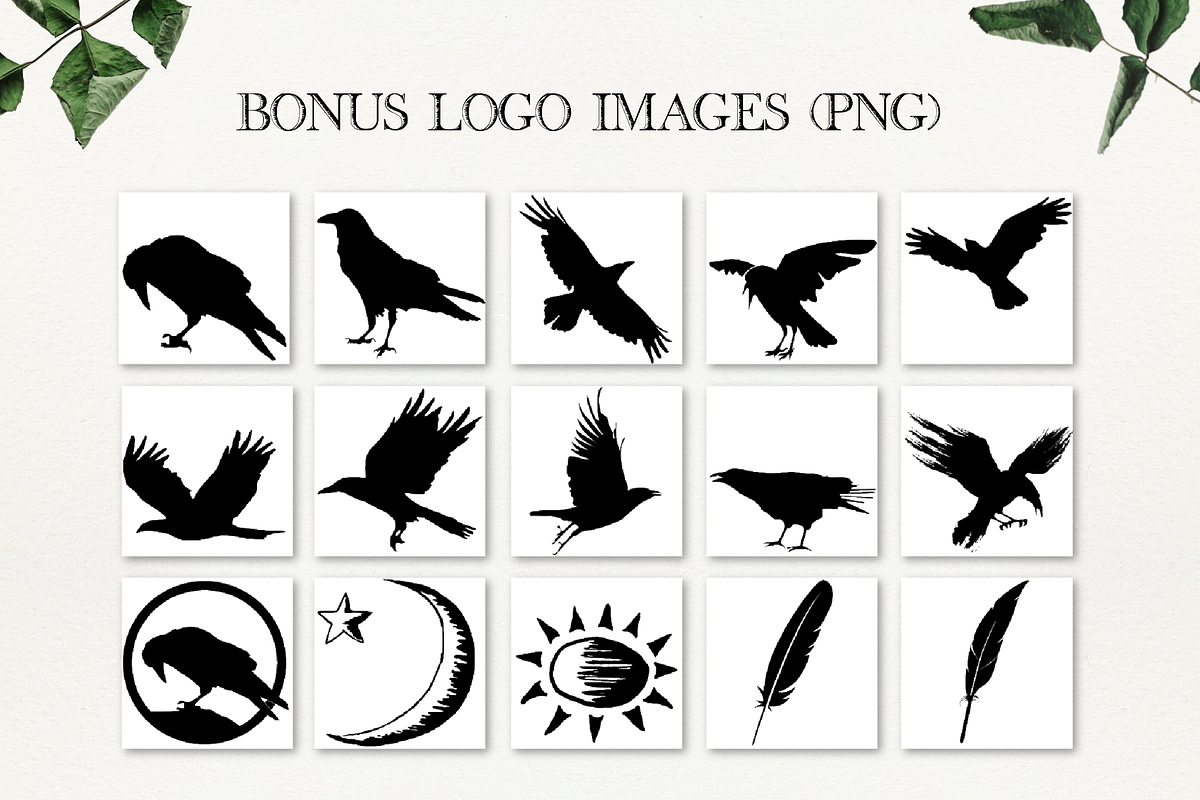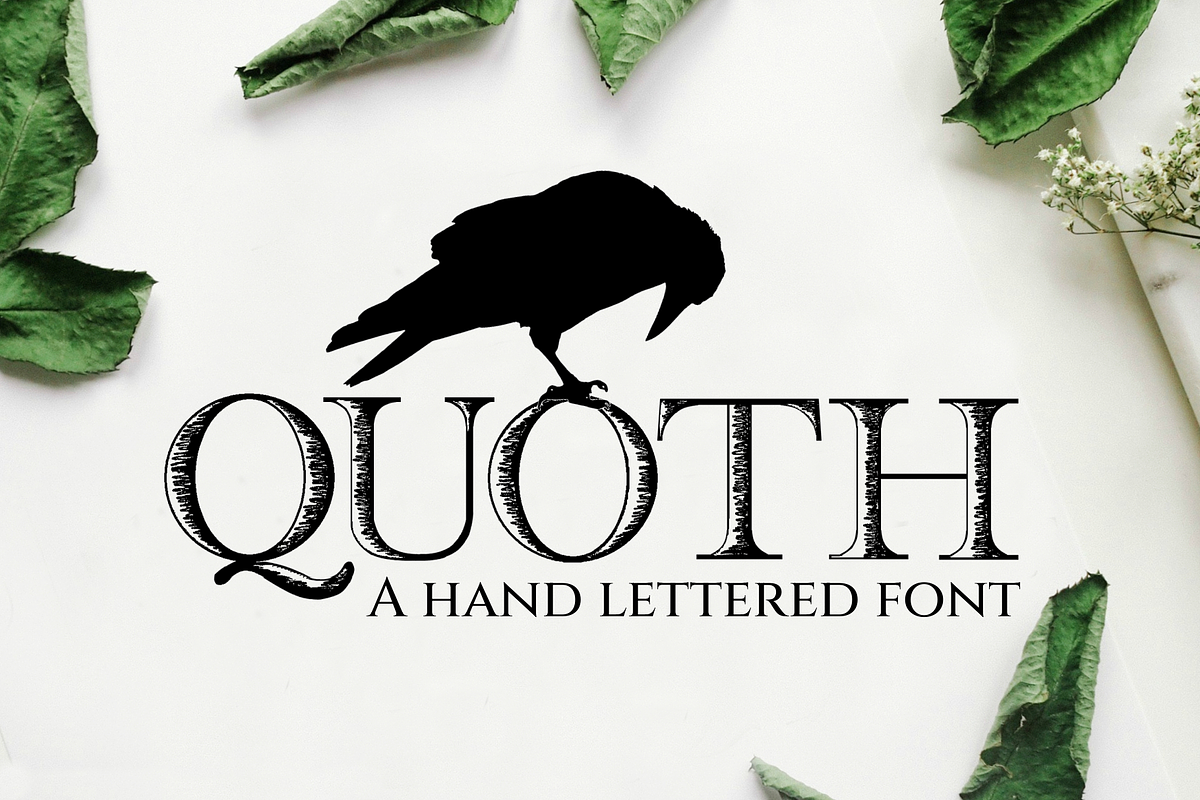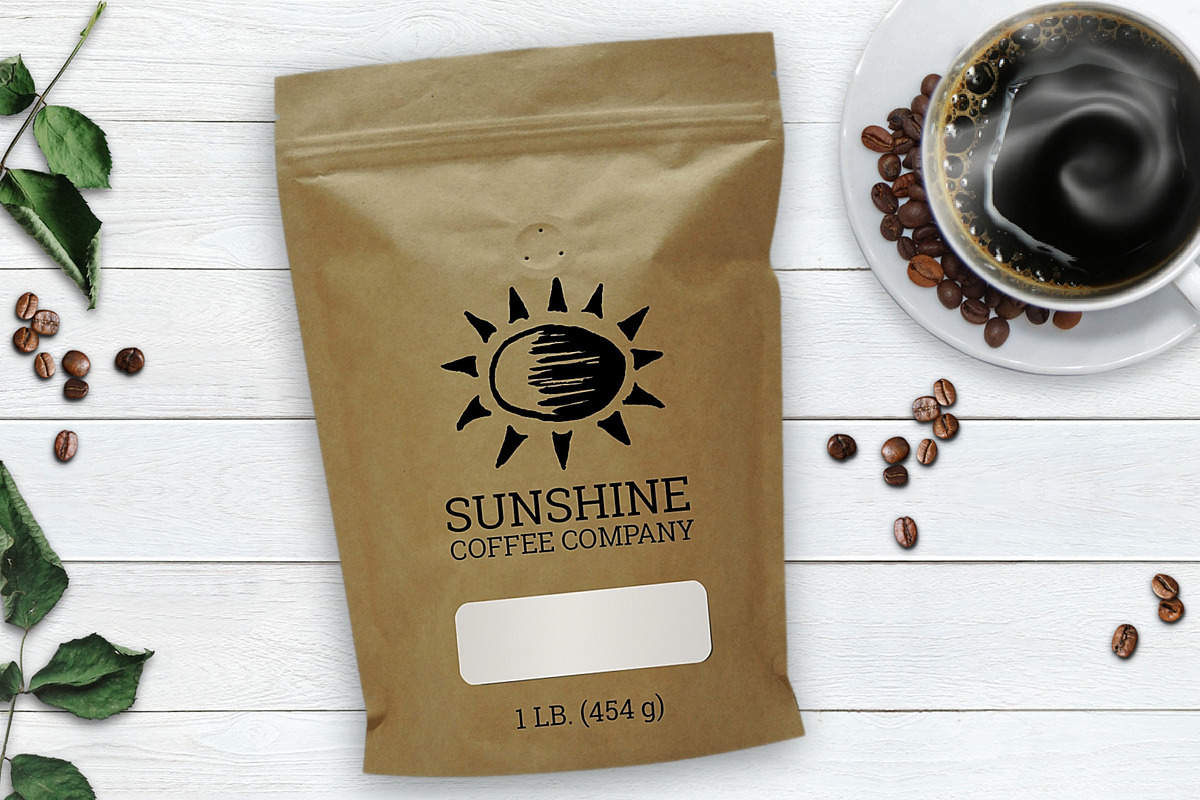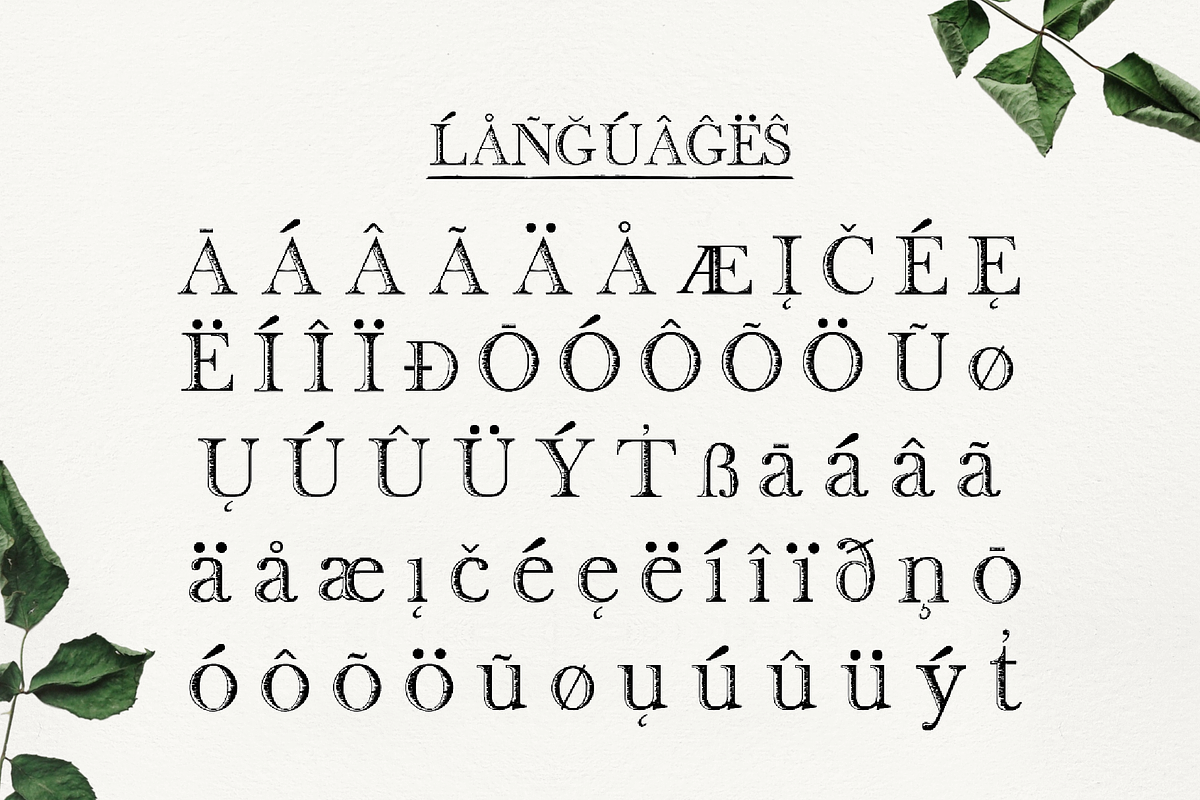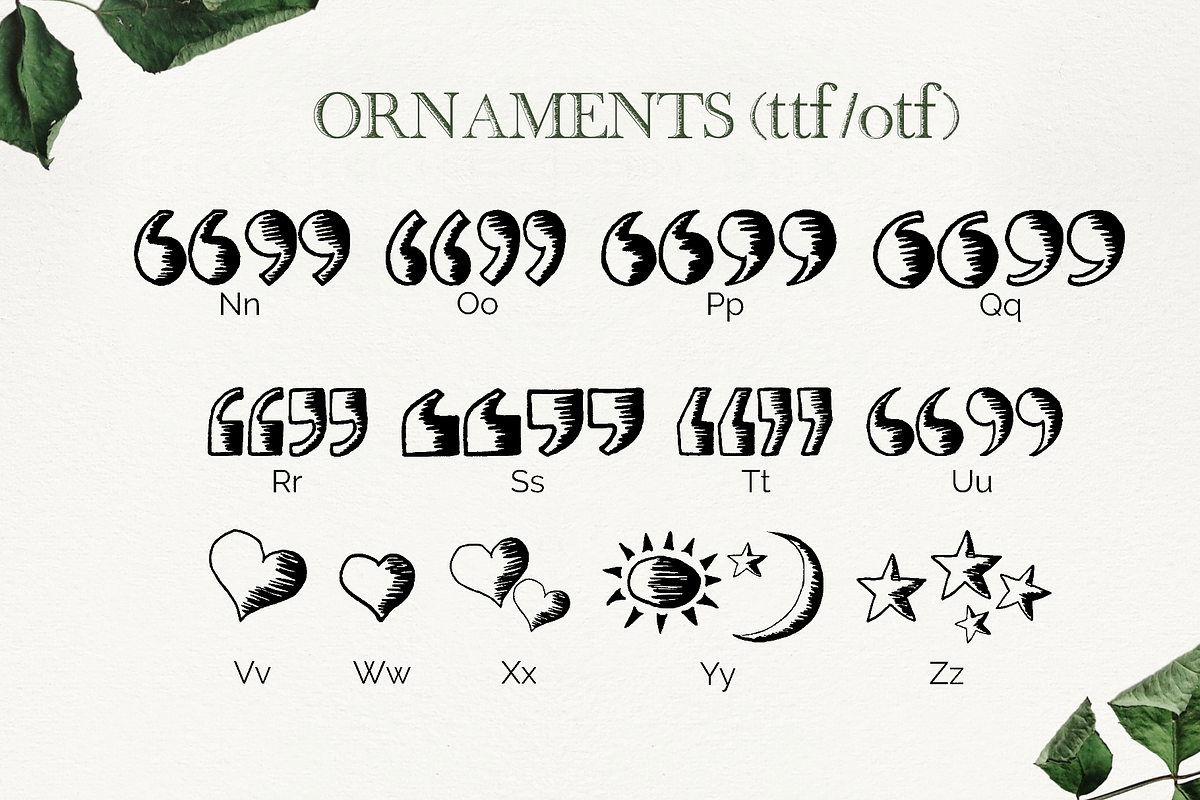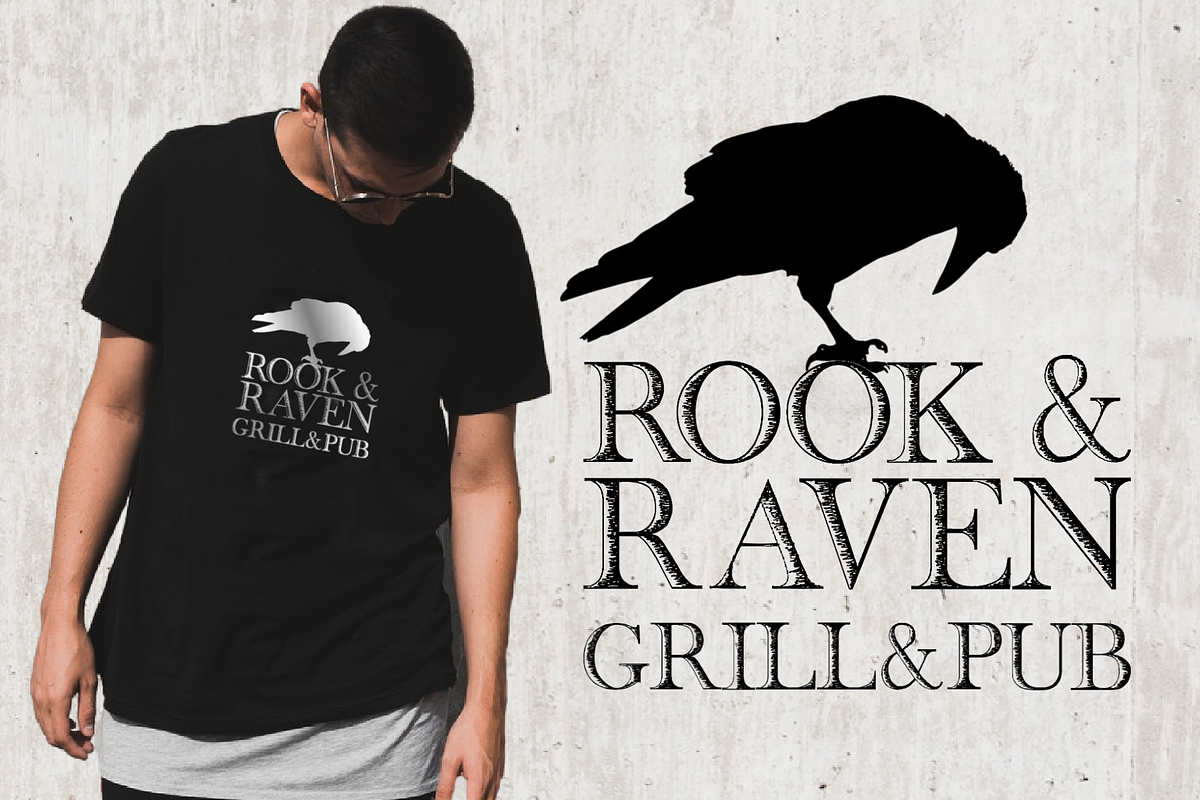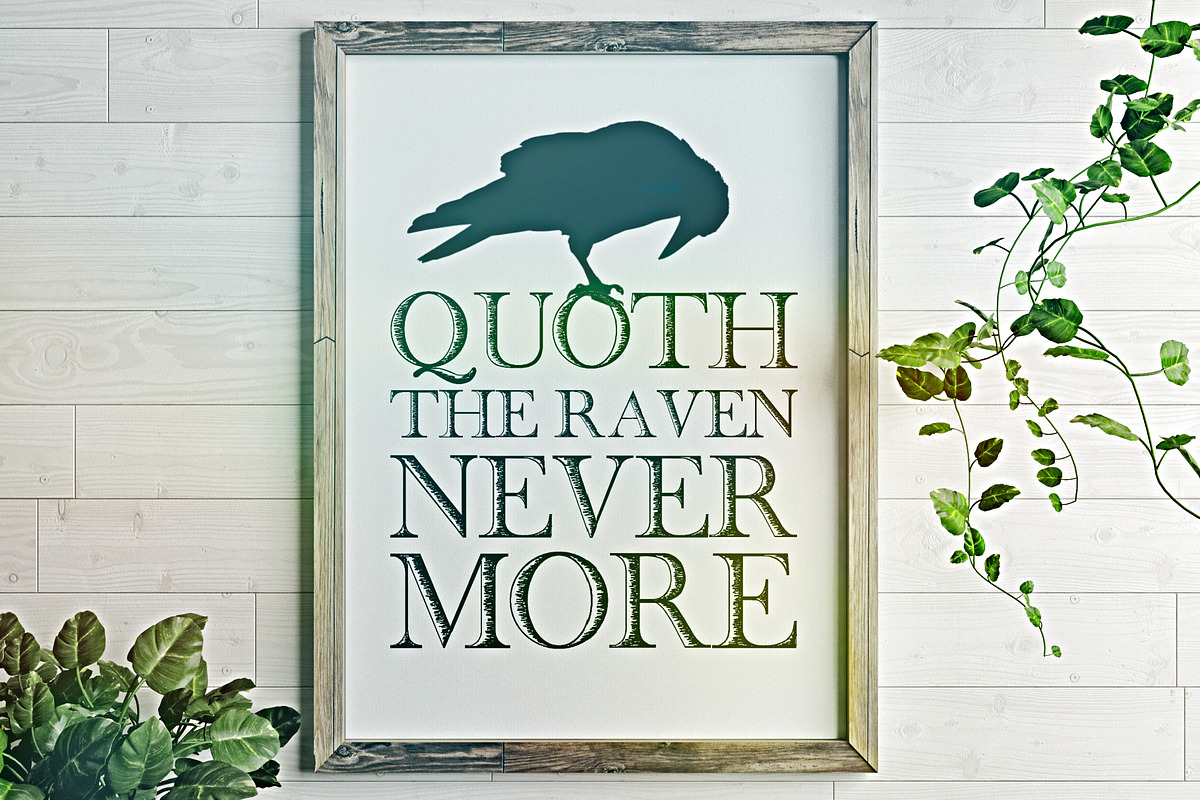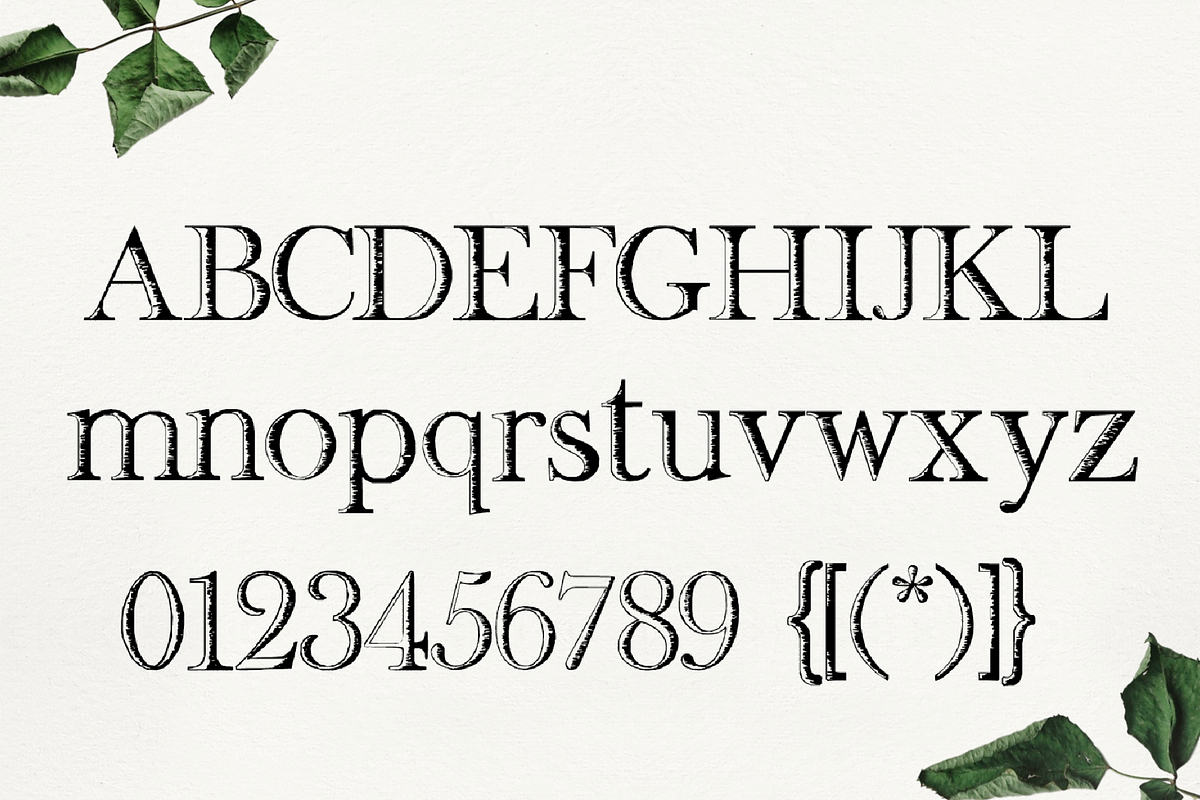
Quoth Font
I created Quoth by hand, using a fine marker and art pencil to create varying thicknesses that gives Quoth its personality. I added quotation marks, sun and moon symbols, feathers and quill pens and topped it up with ravens and crows. I had so many hand sketches I turned them into a companion font that you can use to create unique and fun labels and logos. Enjoy!